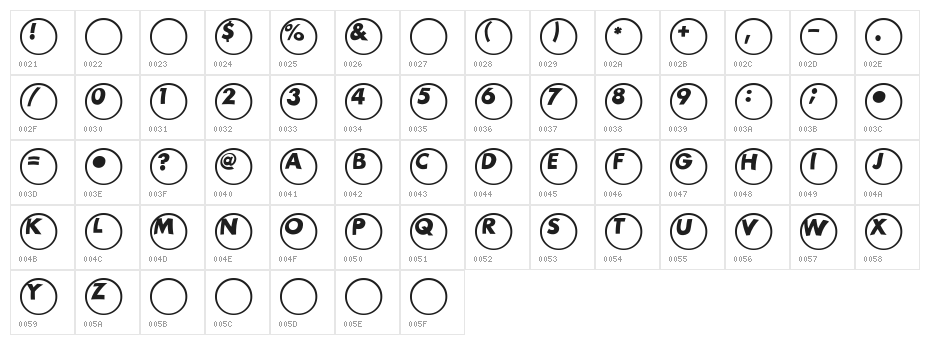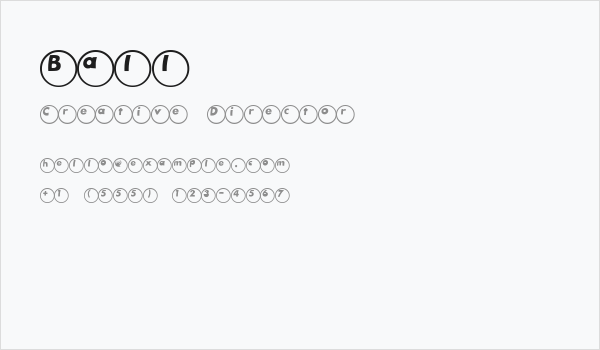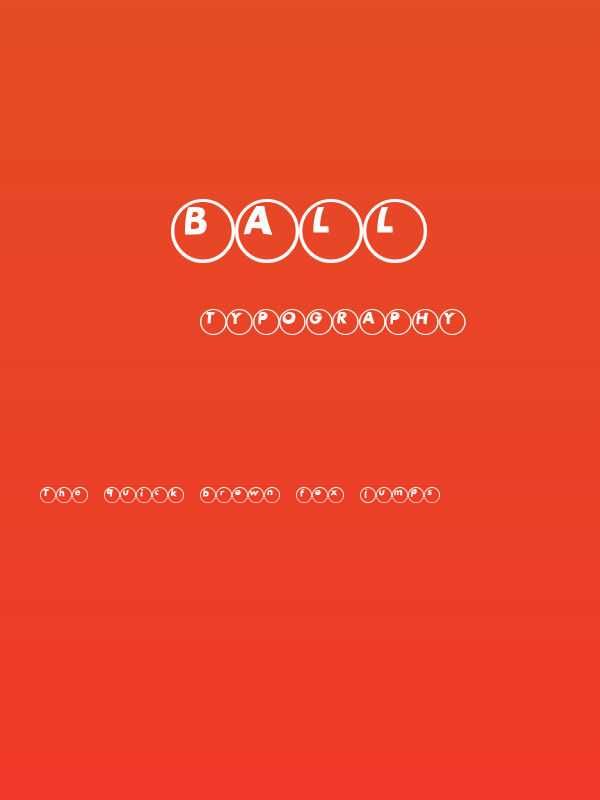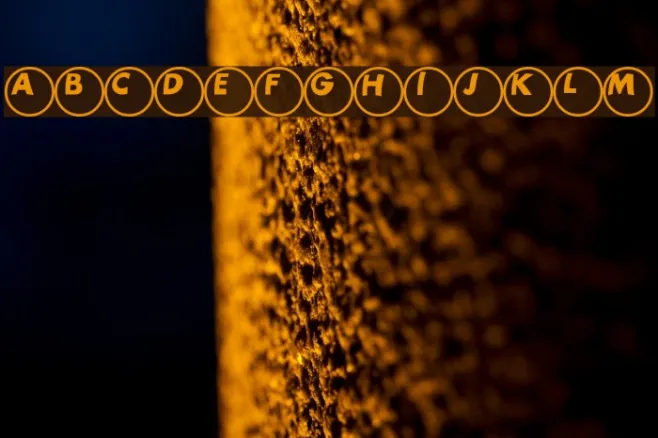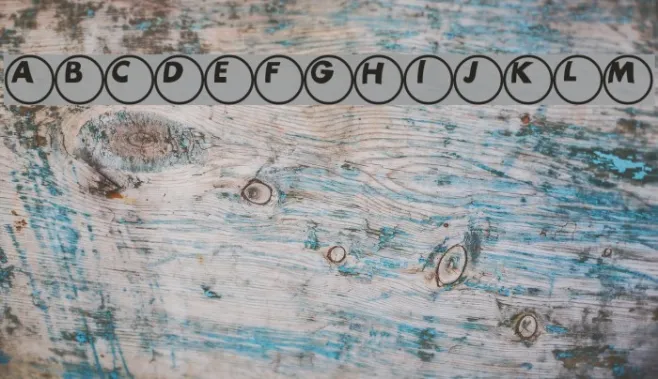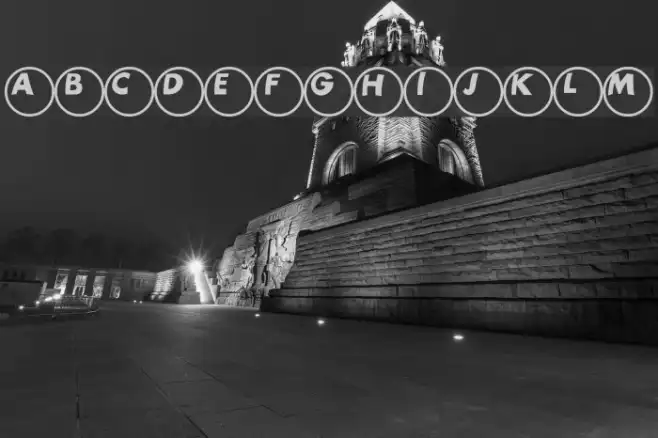
Ball Font
Ball Description
This playful and bold font features characters enclosed within circular outlines, creating a distinctive and eye-catching appearance. The letters are uppercase and lowercase, with numerals and special characters, all maintaining a consistent circular boundary. The style is reminiscent of playful, childlike designs, making it ideal for projects that require a fun and engaging aesthetic. The font's boldness ensures high visibility, while the circular design adds a unique touch that sets it apart from traditional fonts. The uniformity in the circular enclosures provides a cohesive look across all characters.
| Overall Style | Playful, Fun |
| Proposed Projects | Ideal for children's books, playful branding, party invitations, and educational materials. |